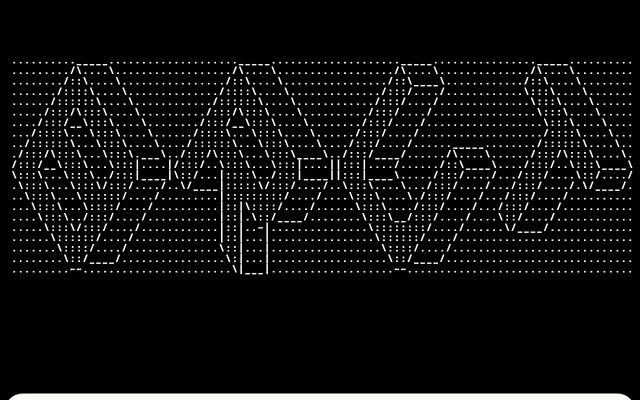
Brut Grotesque Mono
Bureau Brut · Yoann Minet · 2026
A monospaced companion to Brut Grotesque, designed for technical contexts where text aligns to a grid, with the same ten-weight range and character set as its proportional sibling.
Designed by Yoann Minet and published by Bureau Brut, this fixed-width grotesque carries over the sturdy, understated character of Brut Grotesque into monospaced form. Twenty styles run from Line to Black with matching italics across each weight, making it a direct complement to the proportional family. Bureau Brut use it for technical elements in their own visual identity, positioning it for code, spreadsheets, data display and ASCII work.
A fixed-width companion to Brut Grotesque, inheriting its grotesque sans construction but constrained to monospaced metrics, making it a monospaced grotesque by both design lineage and functional intent.